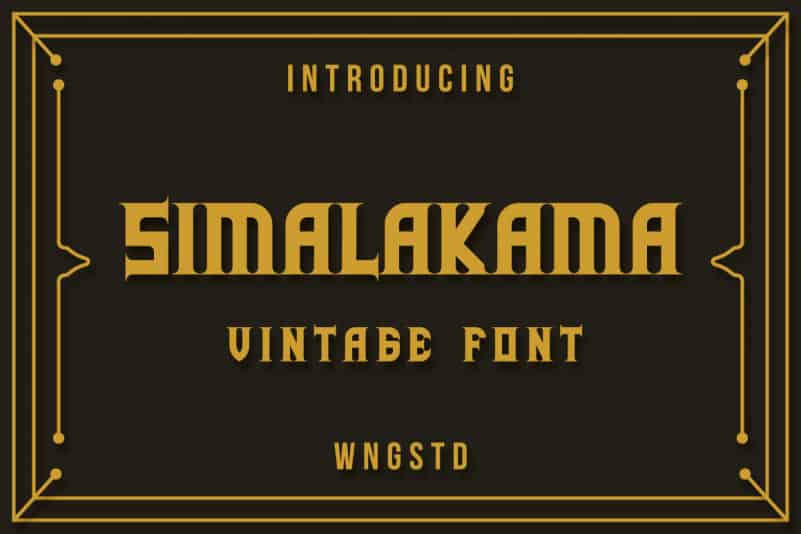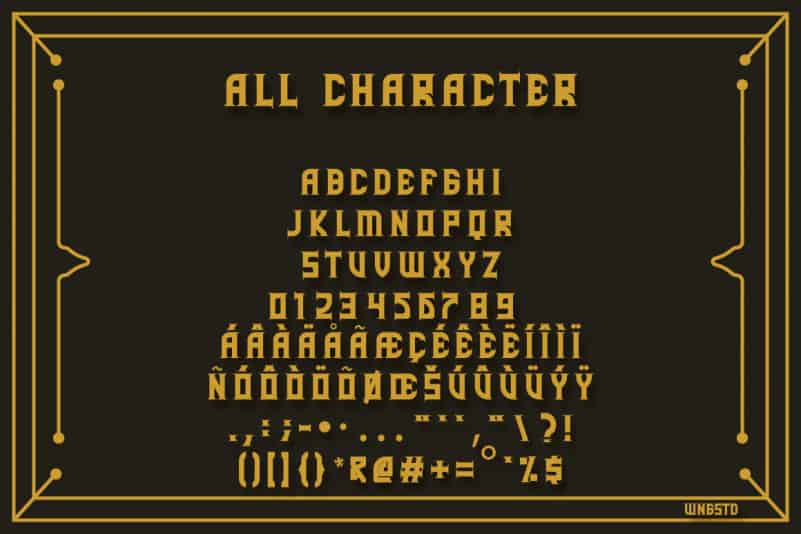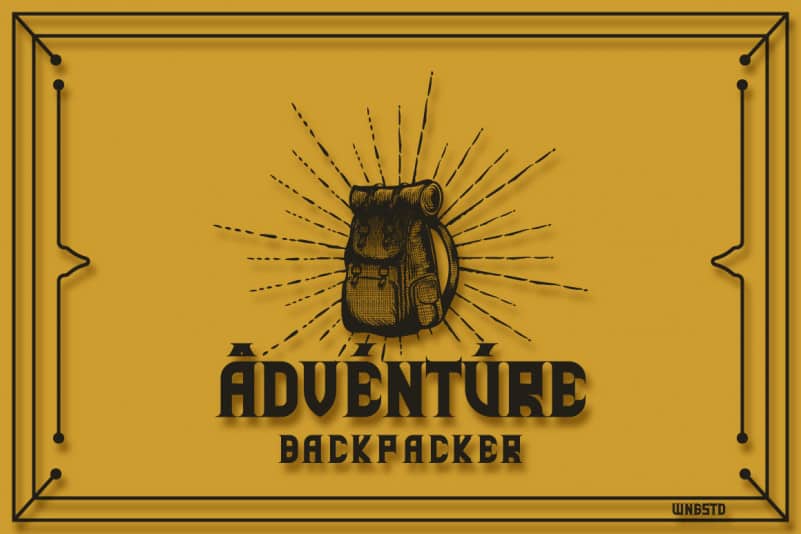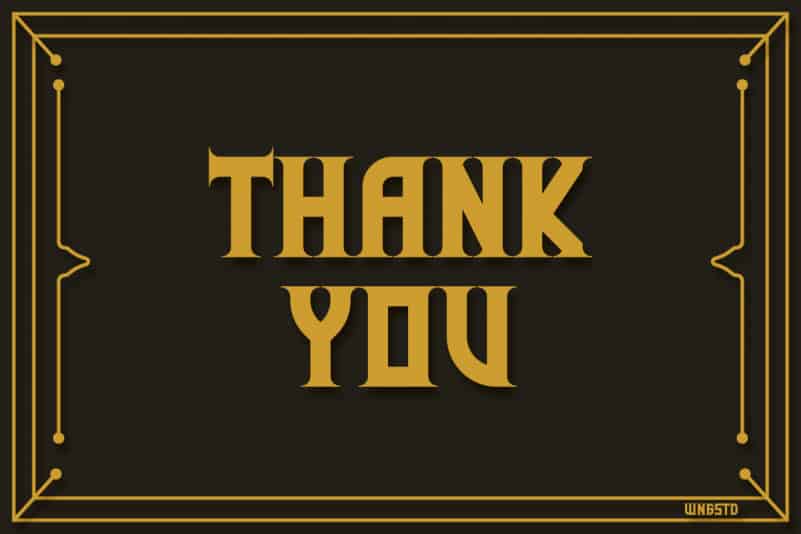
Simalakama Vintage Font is a vintage styled blackletter typeface. Bold and authentic, this font will make an impact on any design idea you wish to develop!
This font can be used for any variety of purposes.
uppercase
lowercase
symbol & number